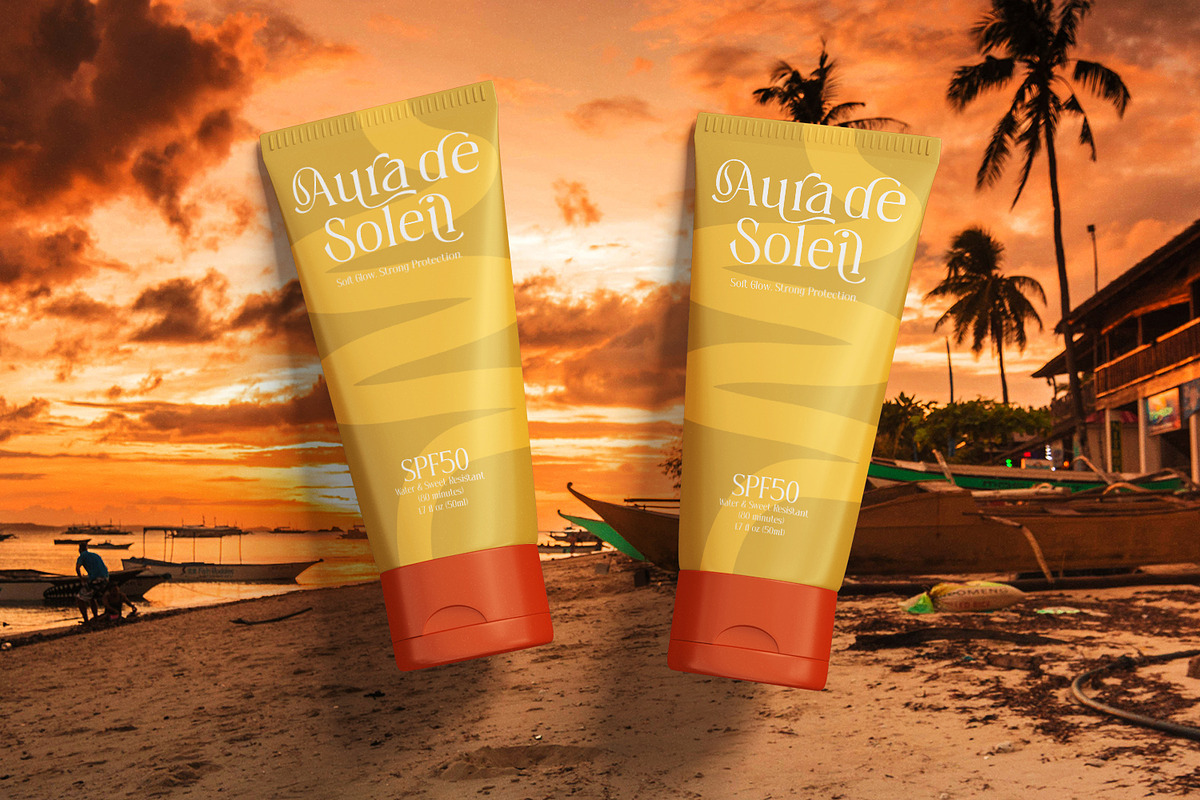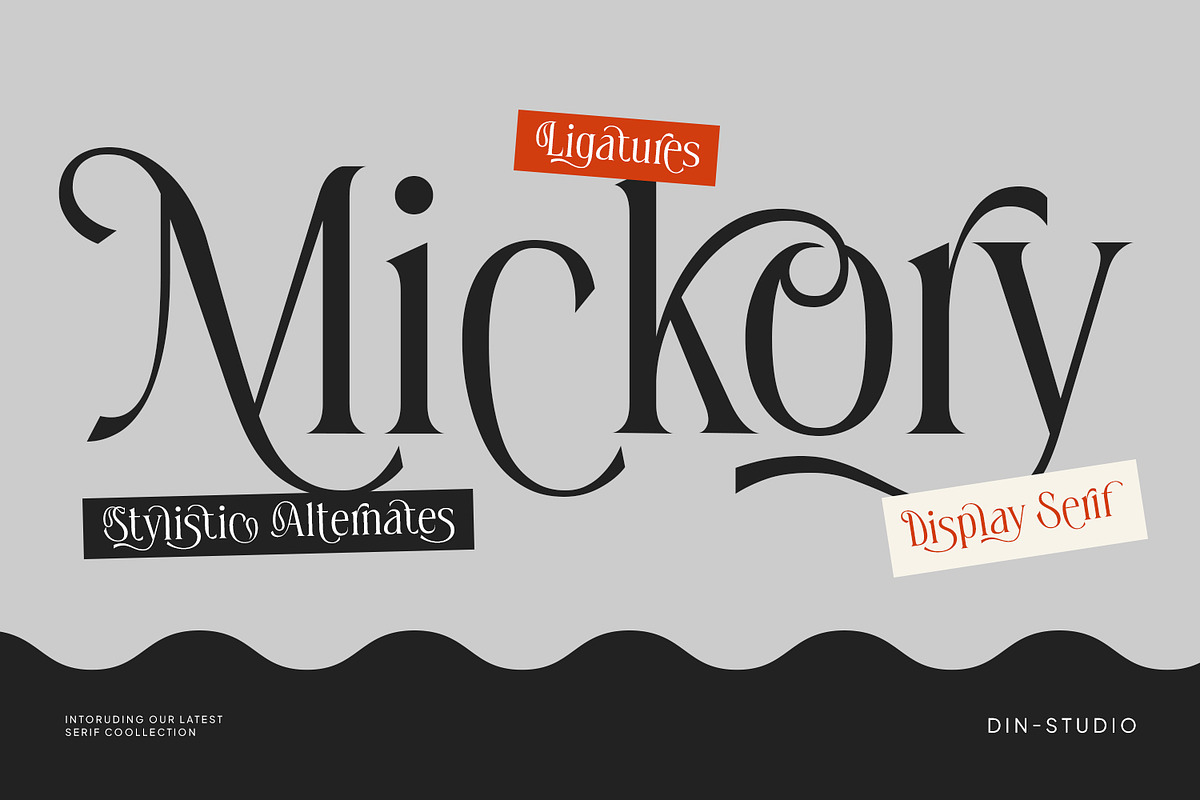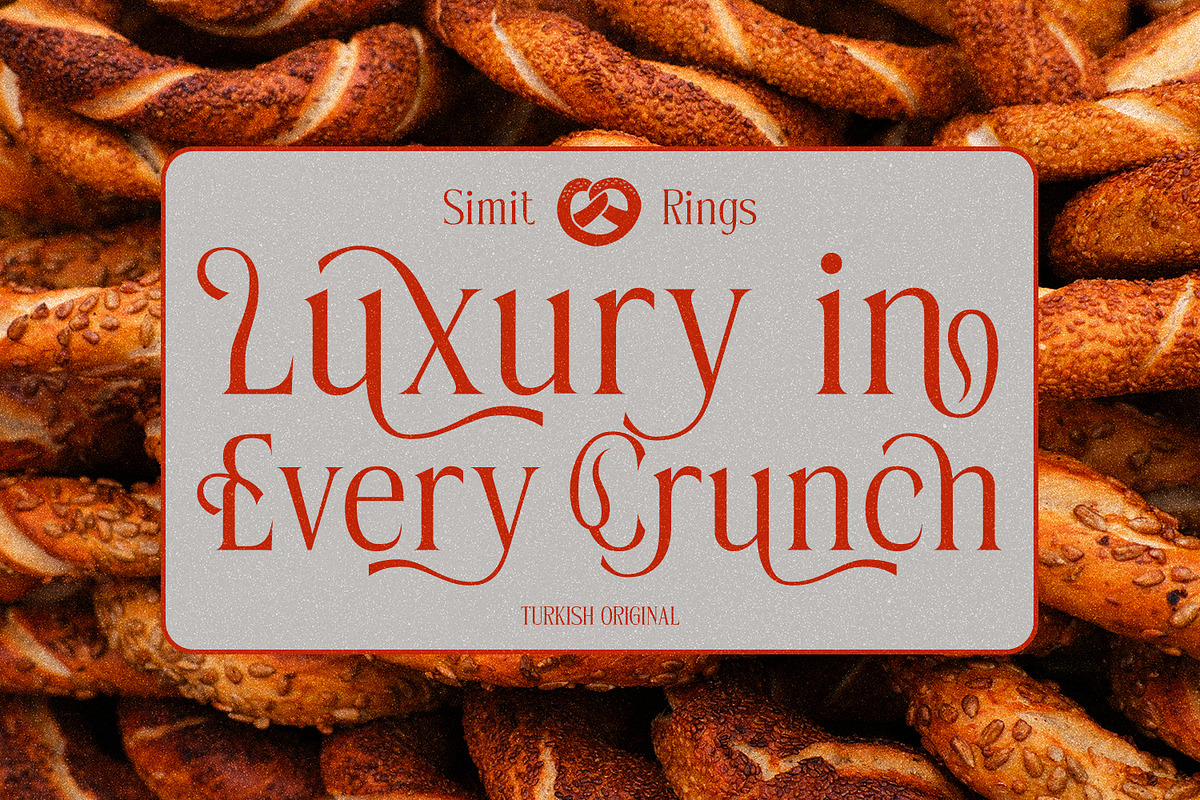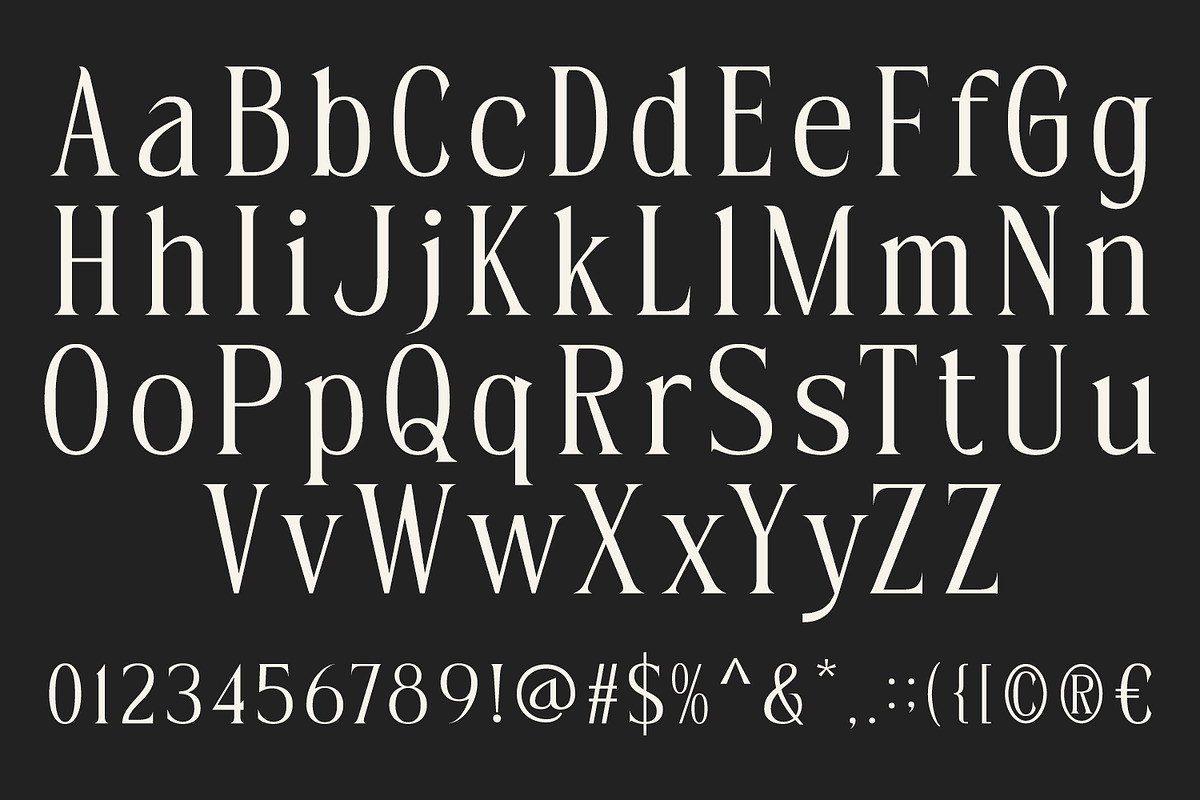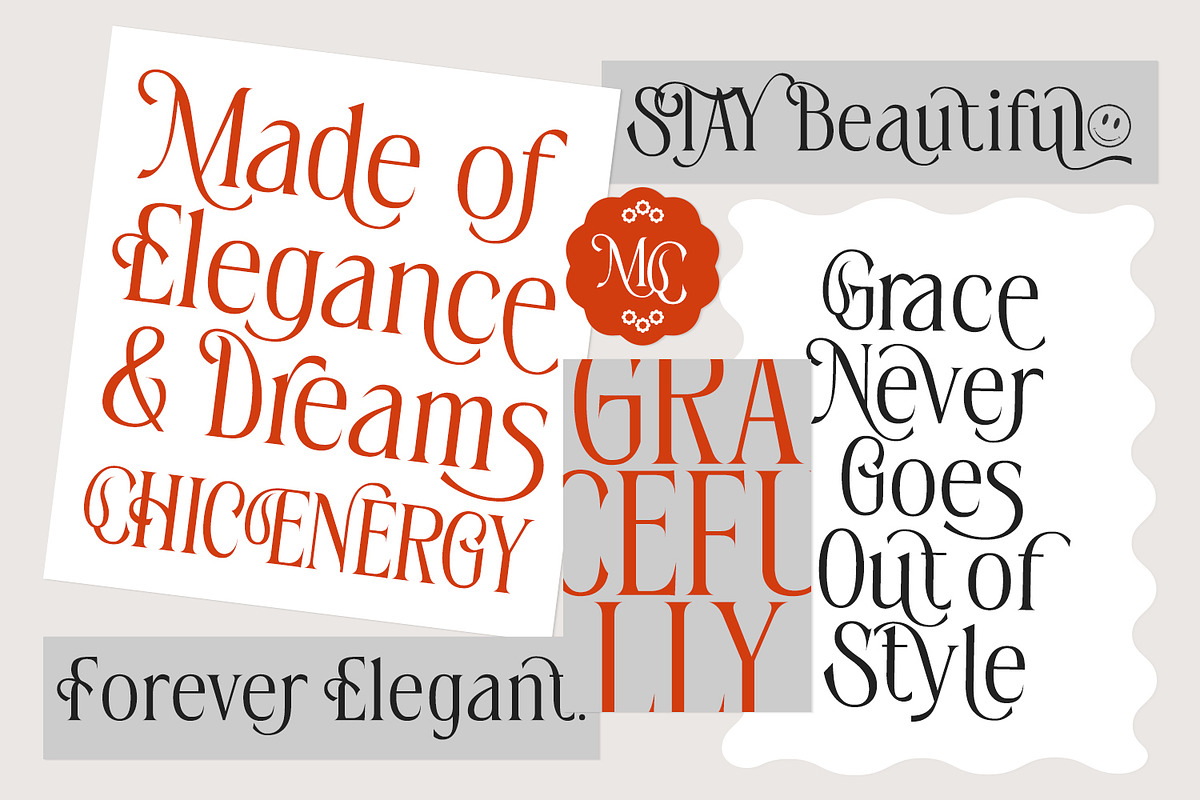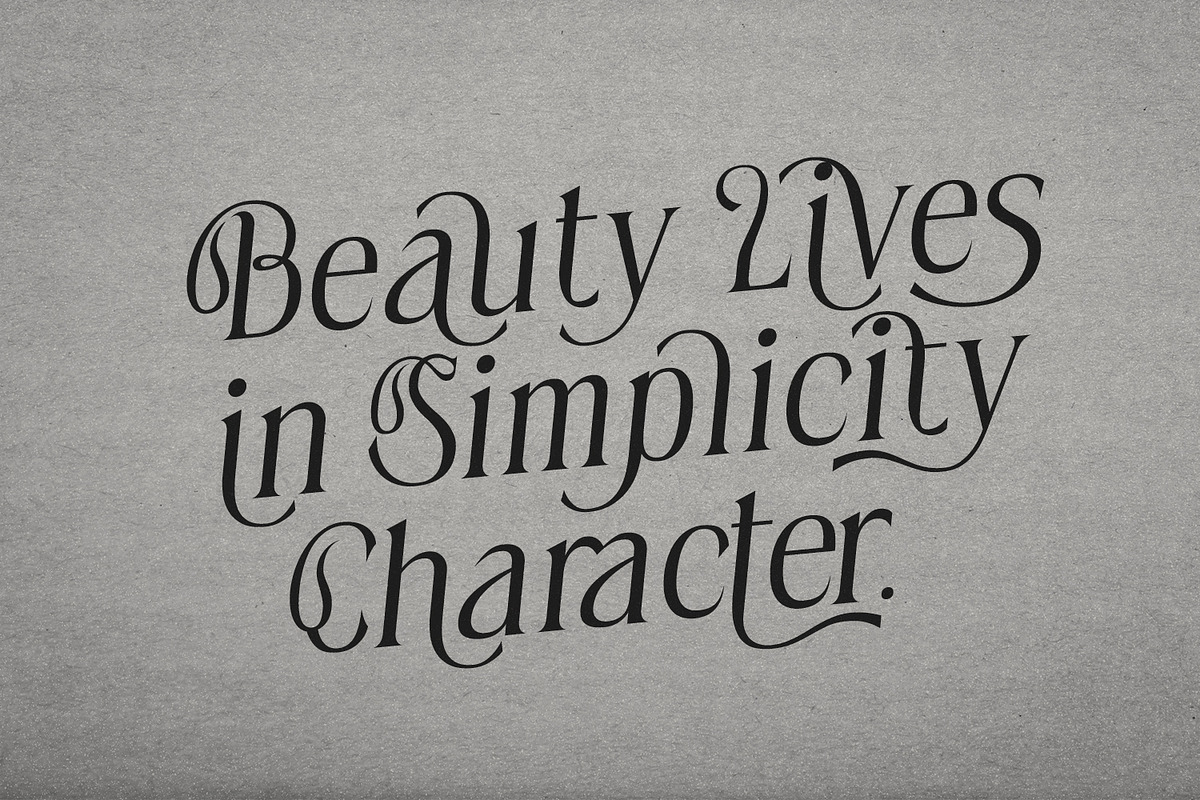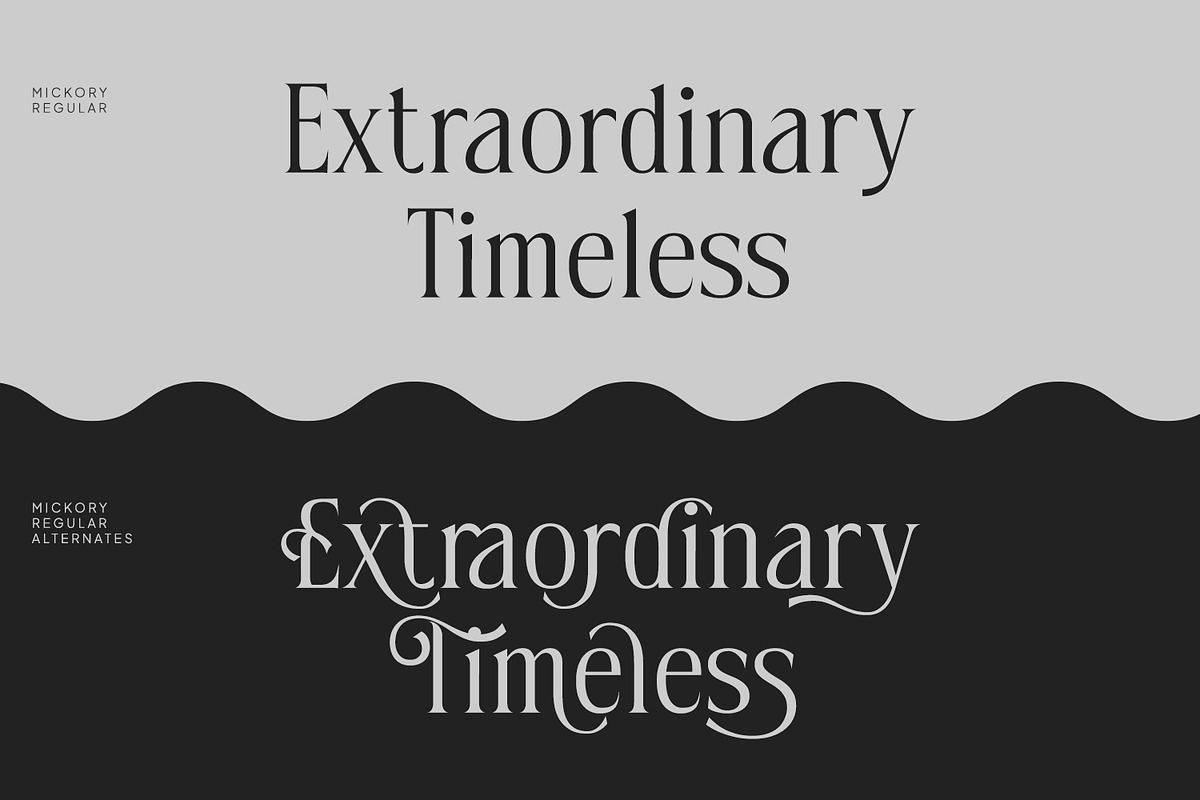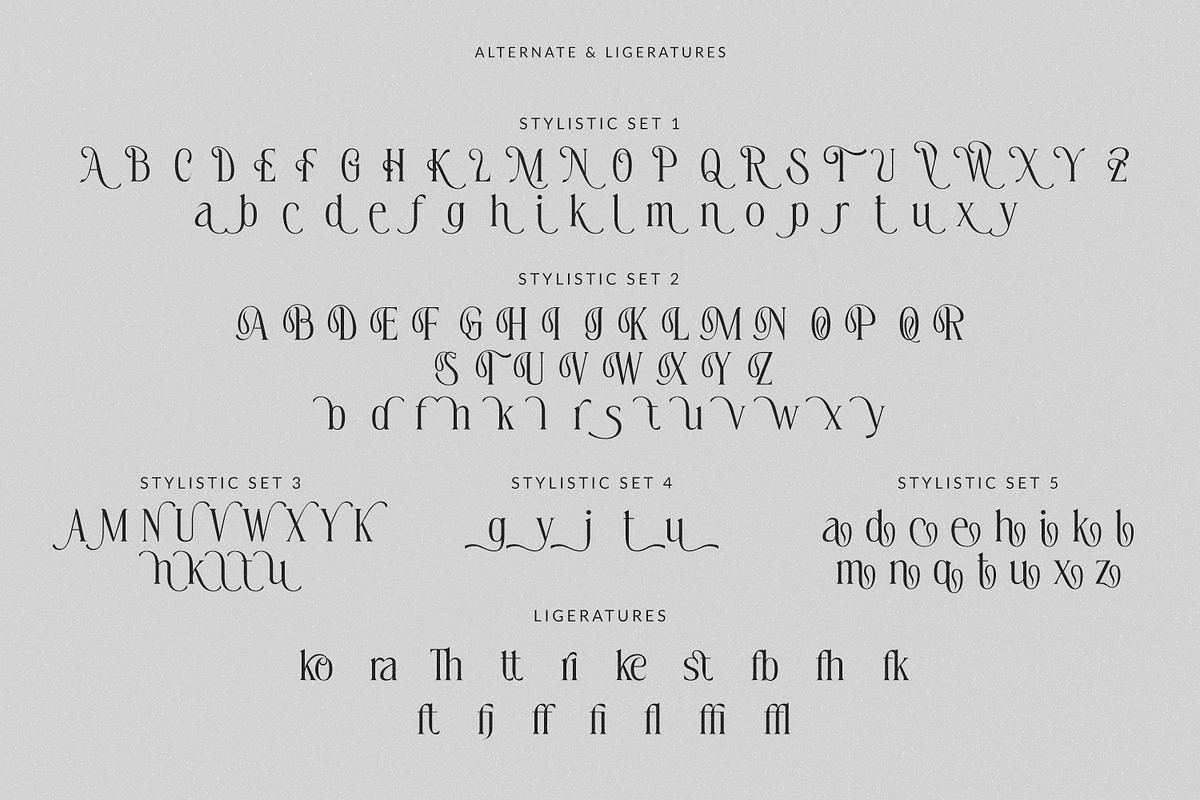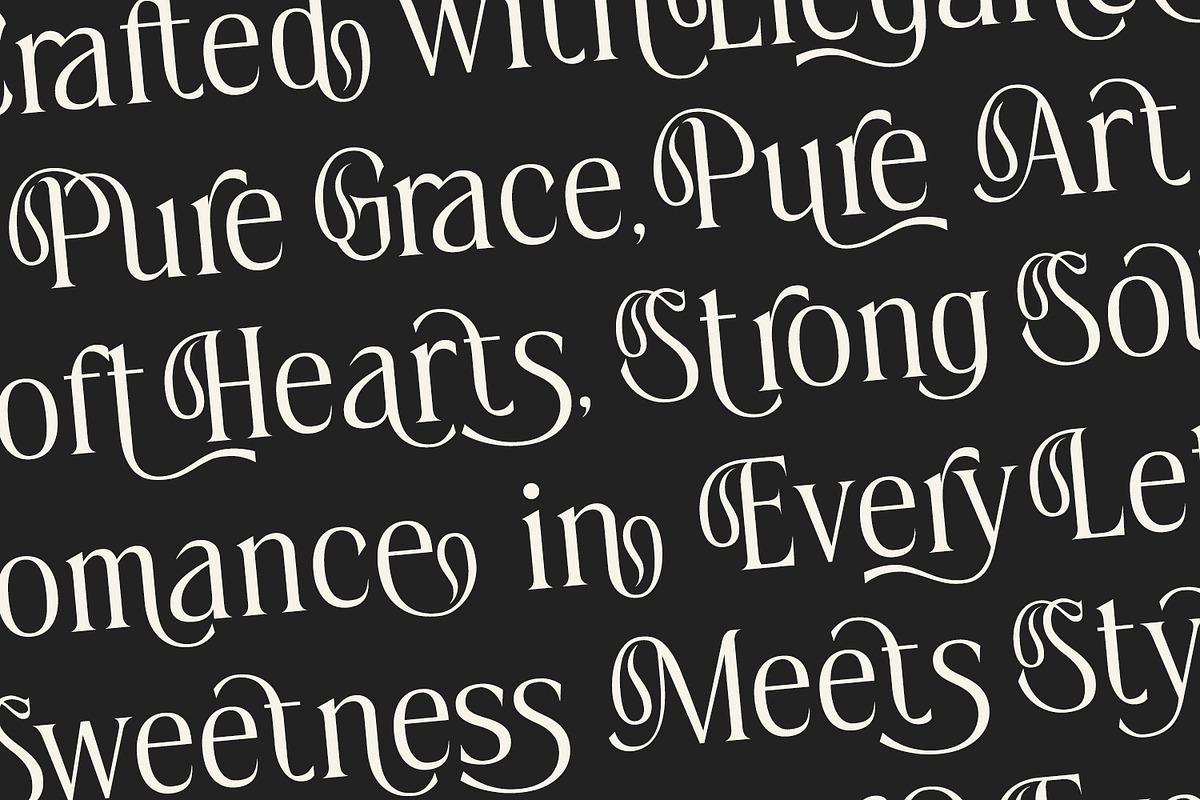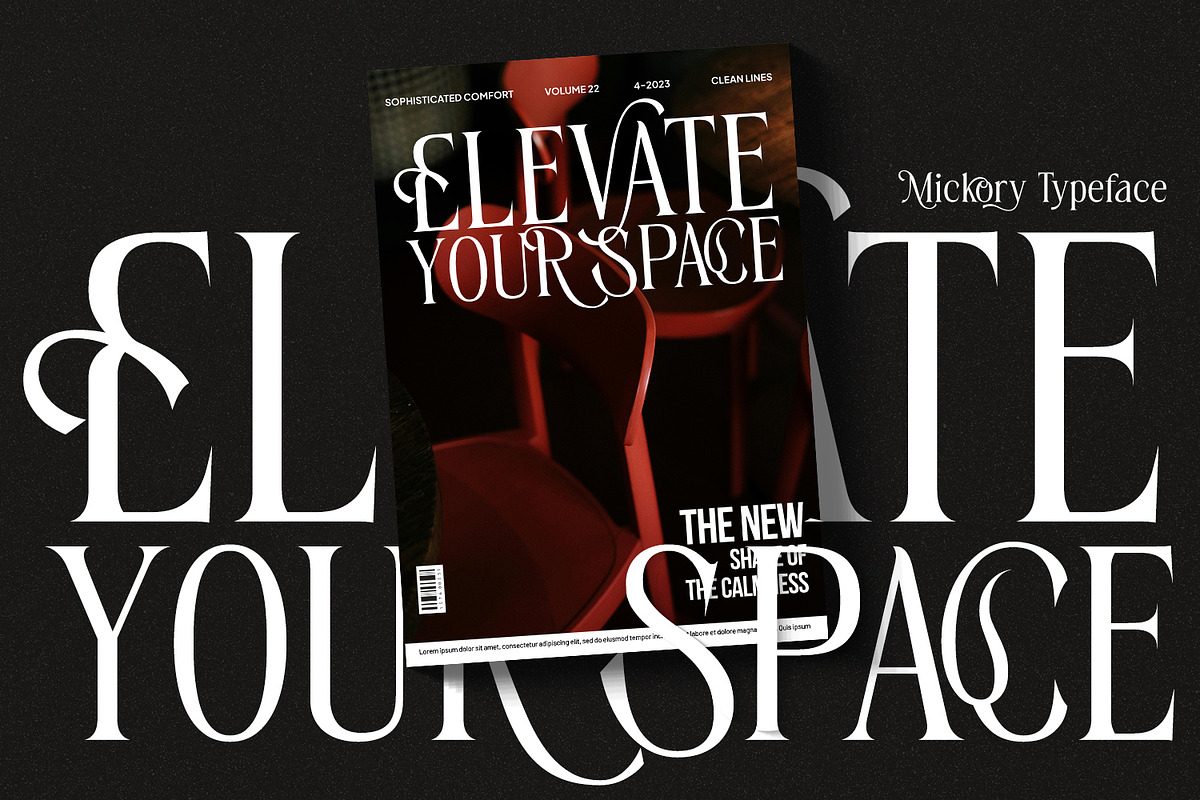
Mickory
mMickory is a sophisticated serif display font that embraces the beauty of modern minimalism with a timeless, high-contrast design. Carefully crafted with clean letterforms, elegant proportions, and dramatic stroke variations, Mickory offers a refined typographic style that instantly elevates any creative project. Its simple yet distinctive appearance makes it the perfect choice for designers seeking a contemporary serif display font that communicates luxury, confidence, and sophistication. In addition, enjoy the features here.
Stylistic Sets
Multilingual Supports
Numerals and Punctuations
Mickory fits in logos, quotes, name cards, branding, posters, and many more designs. Find out more ways to use this font by taking a look at the font preview.